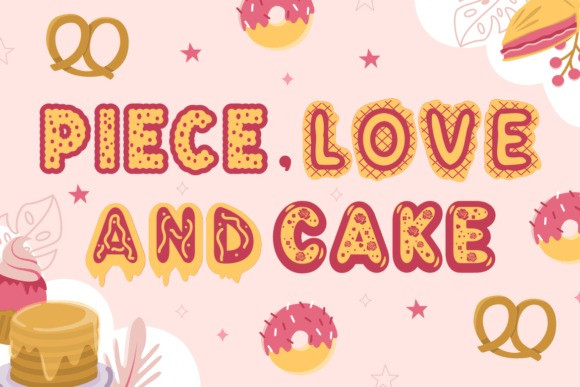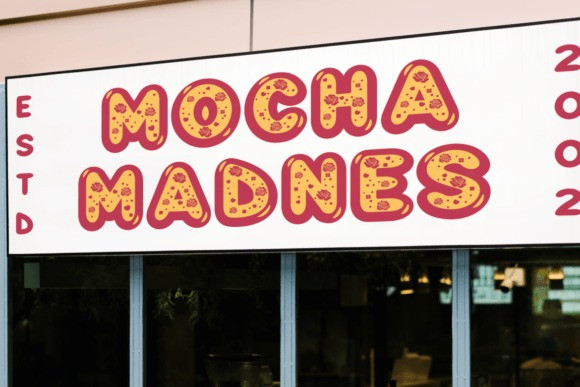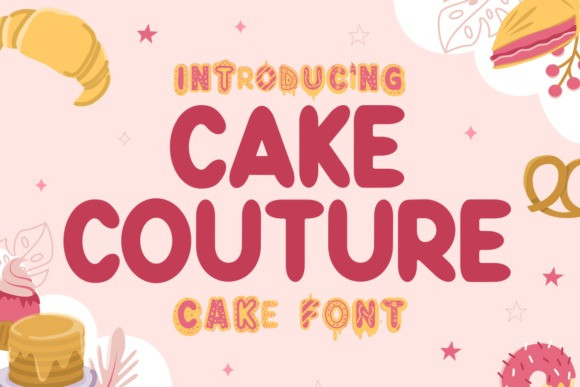
Cake Couture Font
Cake Couture Font the sweetest addition to your design pantry! This font is a delightful concoction of whimsy and elegance, baked to perfection for designers who want to add a sprinkle of joy to their creations. With its playful curves and frosted flourishes, Cake Couture is like a sugar rush for your typography needs. Whether you’re crafting a logo for a boutique bakery, stirring up a charming branding package, or icing a delectable invitation card, this font will serve up the perfect blend of fun and professionalism.